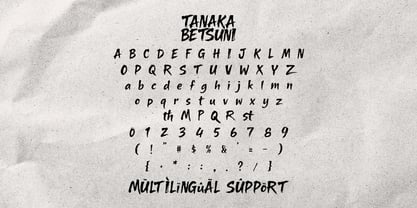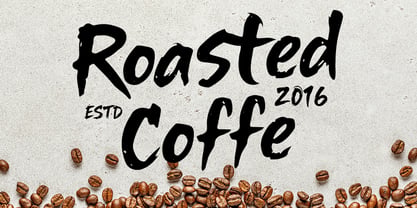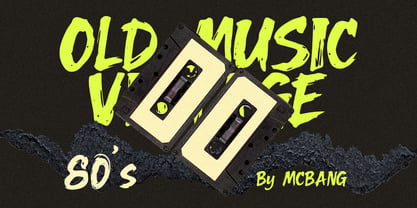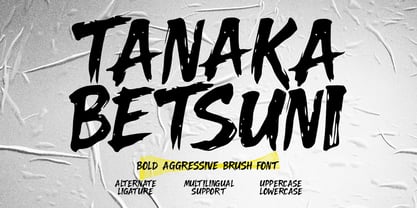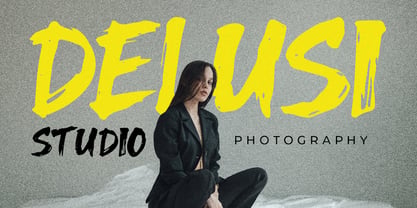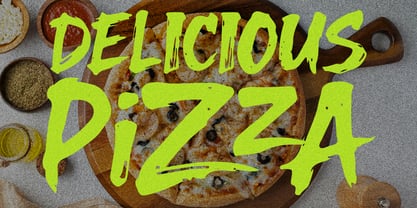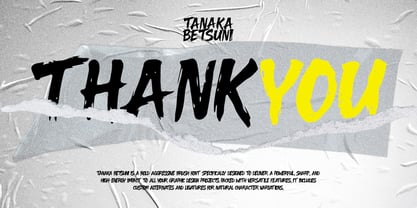
Tanaka Betsuni
von Maulana Creative
Die Schriftfamilie Tanaka Betsuni wurde von Gilang Maulana entworfen und von Maulana Creative veröffentlicht. Tanaka Betsuni enthält 1 Stile. Mehr über diese Familie
Tanaka Betsuni is a striking display typeface that commands attention with its raw energy and aggressive aesthetic. Crafted with sharp, expressive brushstrokes, this font captures a dynamic and rebellious spirit that instantly elevates any visual concept. The intentional textures and jagged edges give each character an authentic, hand-painted feel, making it perfect for projects that require a powerful, energetic, and edgy artistic direction.
This versatile typeface excels in high-impact creative designs, ranging from cinematic titles and music branding to digital media and event promotions. With its exceptional legibility and strong presence, it effortlessly breathes life into logotypes, poster layouts, and merchandise branding. Introduce an undeniable sense of attitude and modern artistic flair to your next creative masterpiece with this compelling brush font.